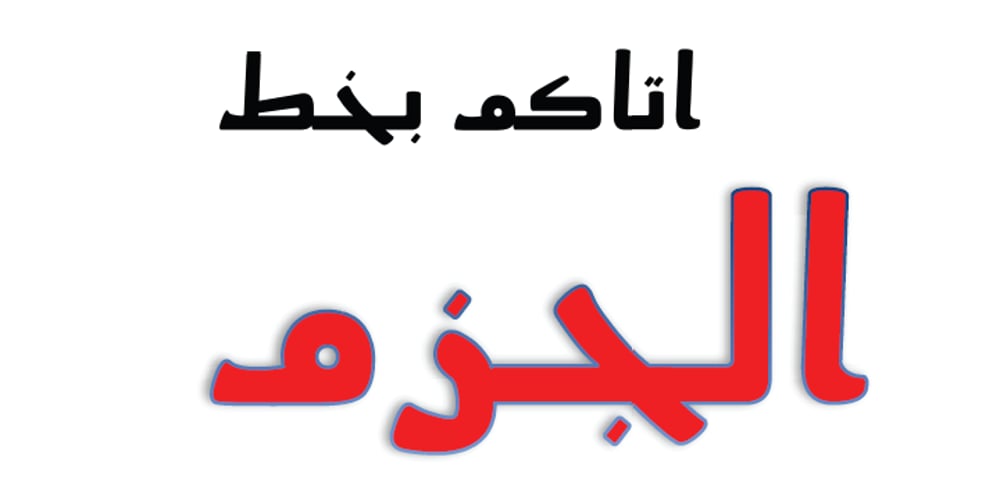
Jazm Font Family was designed by Saad D. Abulhab and published by Arabetics. Jazm contains 6 styles and family package options. Jazm is an Arabetic typeface design with connected glyphs. Jazm was the earliest, pre-Islamic, script style of the modern Arabic script, before branching into Kufi and Naskh styles. The initial script had a lot less, position-dependent shapes and ligatures, and was not strictly connected. It occasionally included minuscule dots to distinguish identical shapes. This font family design is a modern visualization by the designer of the historical Jazm letter shapes following the guidelines of the Mutamathil Taqlidi type style with one glyph for every basic Arabic Unicode character or letter, as defined in Unicode Standards, and one additional final form glyph for each Arabic letter that can connect with other letters from both sides in traditional cursive Arabic strings. Jazm employs variable x-height values. It includes all required Lam-Alif ligatures and selected marks. Tatweel (or Kashida) glyph is a zero width space. Keying it before any glyph will display that glyph isolated form, if desired. Keying Tatweel before Alif Lam Lam Ha will display the Allah ligature. Jazm typeface family includes both Arabic and Arabic-Indic numerals; all required diacritic marks, in addition to Standard English keyboard punctuations and major currency symbols. Jazm is available in regular, bold, black, and corresponding italic (slated to the left) styles.